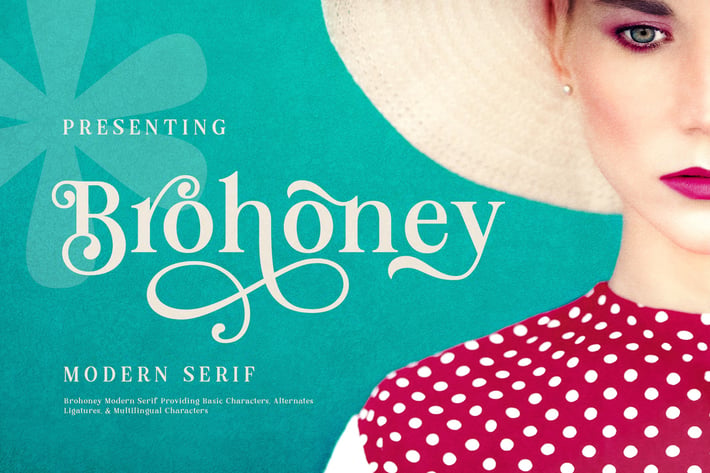
Brohoney Modern Serif Typeface
Modern Serif font with alternate and unique style, a display font in a elegant and bold style that makes your designs unique and distinctive.
A-Z Character Set
Numerals & Punctuations (OpenType Standard)
Stylistic Alternates
* Ligatures